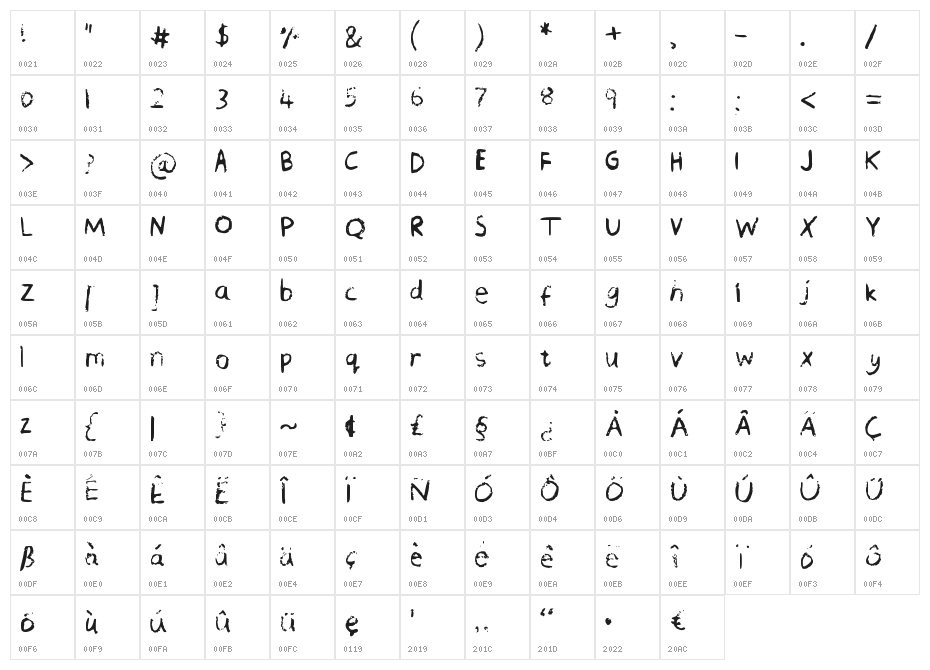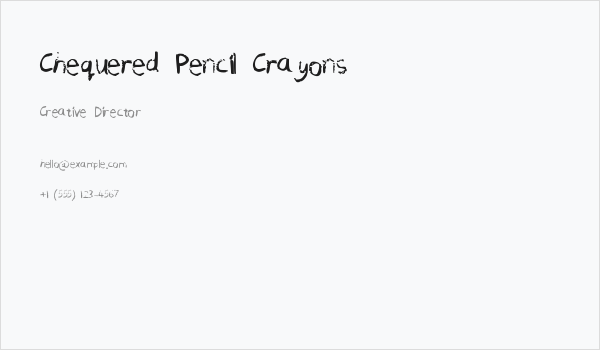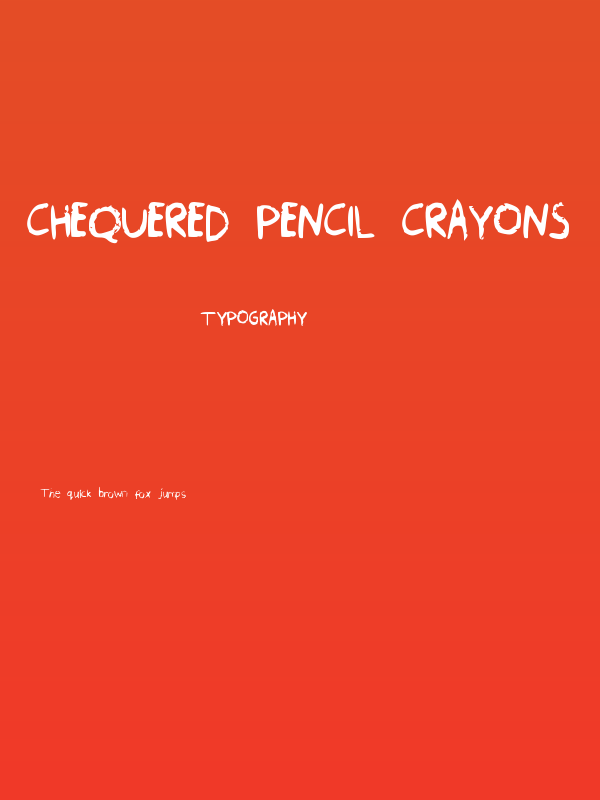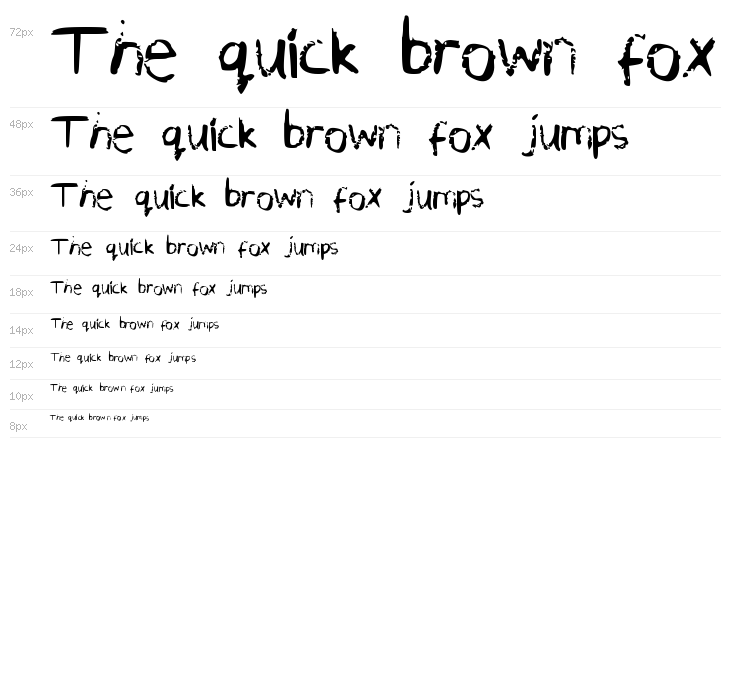
Chequered Pencil Crayons Font
Chequered Pencil Crayons Description
This font features a playful and artistic style, reminiscent of hand-drawn or painted letters. The characters have a rough, textured appearance, giving them a unique and creative look. The irregular edges and varying stroke thicknesses add to its charm, making it ideal for projects that require a casual and informal touch. The uppercase and lowercase letters maintain a consistent style, while the numbers and special characters complement the overall design. This font is perfect for adding a personal and artistic flair to any project.
| Overall Style | Artistic, Playful |
| Use Case | Headlines, Posters, Creative Projects |
| Proposed Projects | Ideal for children's book covers, creative posters, art projects, and casual branding. |